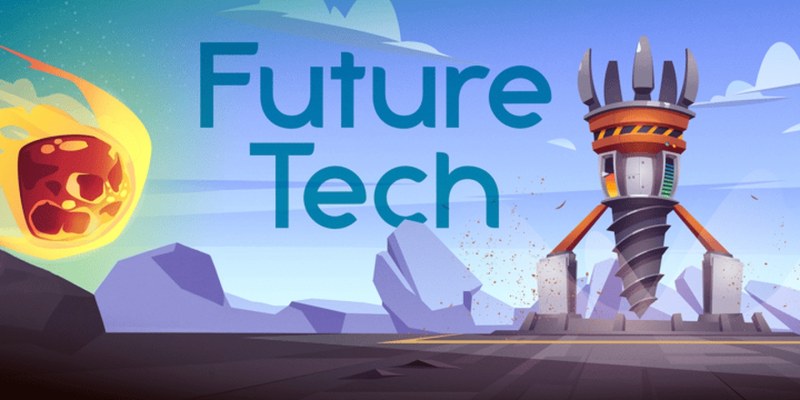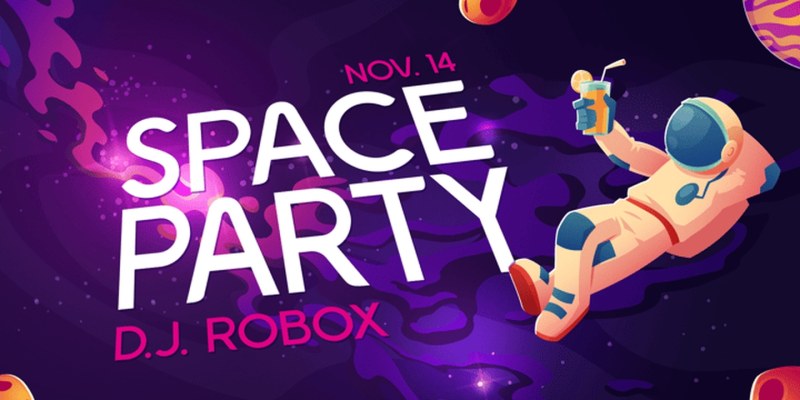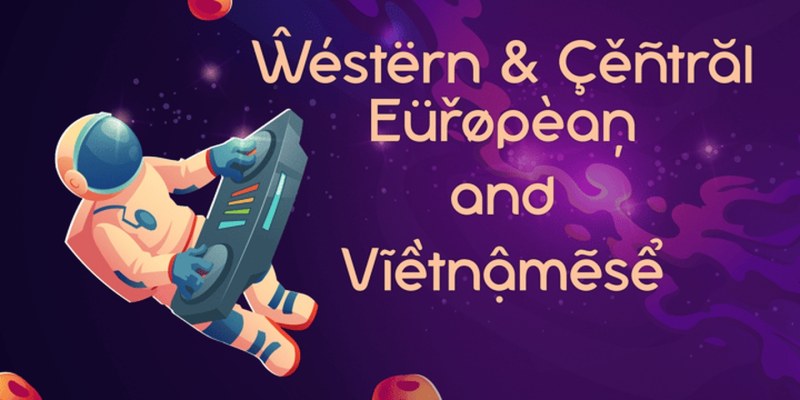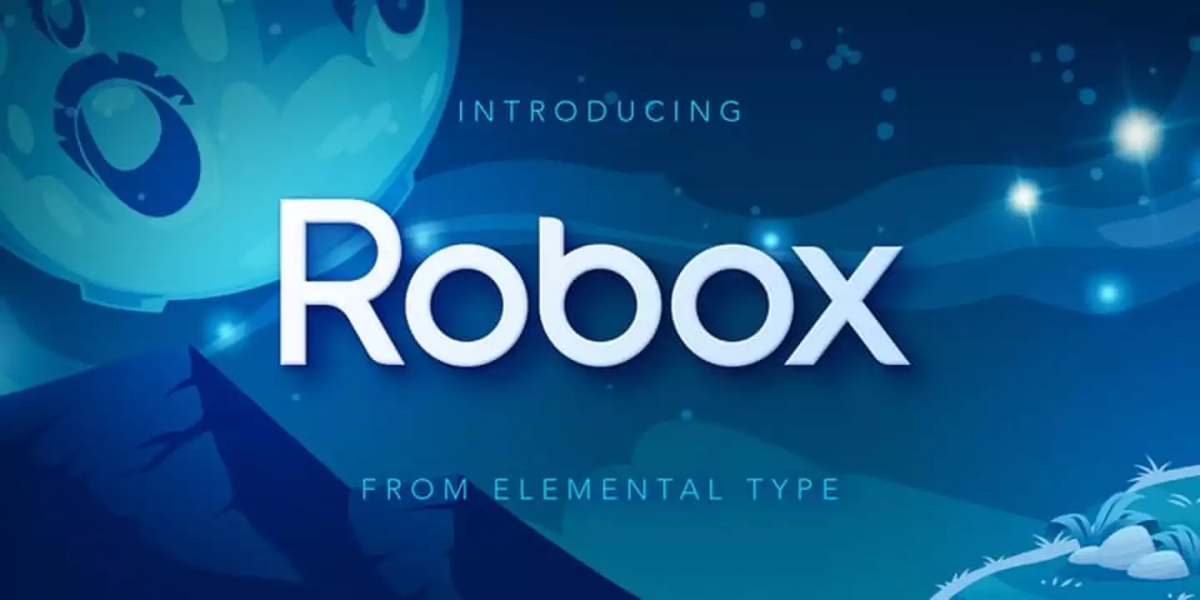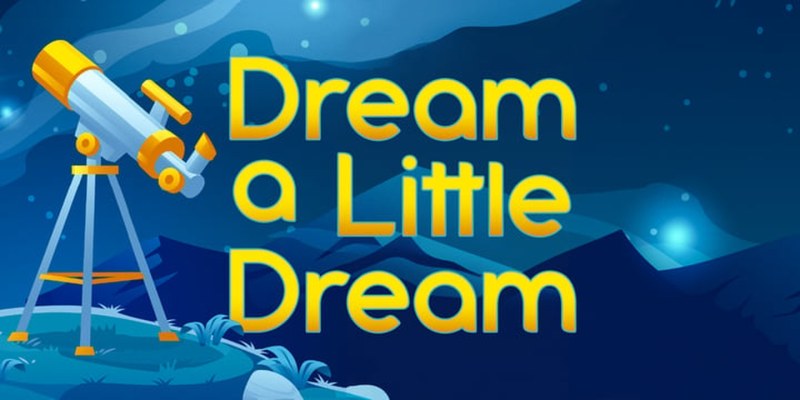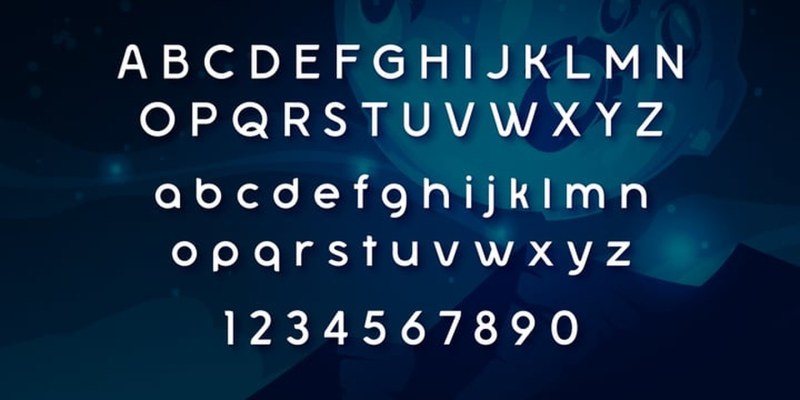
Robox Std Font
Robox is a unique sans serif typeface created from geometric shapes like perfect circles and straight stems with half-rounded endcaps. Simple, yet complex, this typeface is akin to other classics, like Avant Garde and Bauhaus, in that it can be used in modern, friendly or futurist designs. Whether your intent is serious or playful, the versatility of Robox has you covered.
Where Robox Std Font works best
Robox Std Font stays legible at small sizes, which makes it a strong choice for navigation, buttons and dashboards in web design and app interfaces.
Clean sans serifs like Robox Std Font are the default language of SaaS, fintech and product branding.
What is Robox Std Font good for?
Robox Std Font is a Sans Serif Fonts typeface tagged Friendly, Geometric, Modern, Playful. It works well for headlines, logos, posters, social media graphics and branding projects that need a distinctive sans serif fonts look.